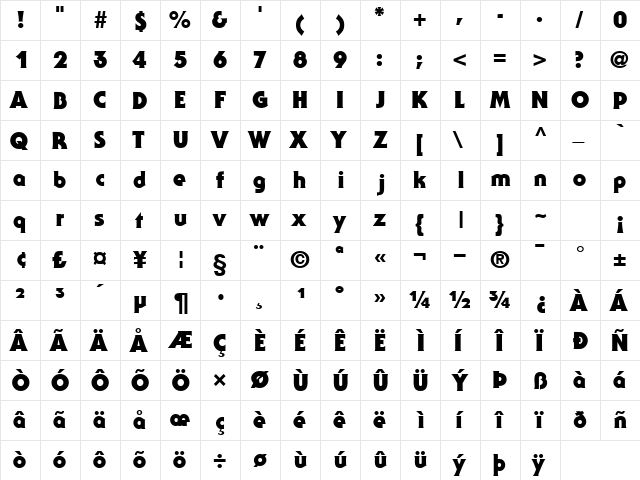
UbiqGothicBlackSSK Bold
Design Context for UbiqGothicBlackSSK Typeface
UbiqGothicBlackSSK has the quiet confidence of well-executed sans-serif typography: versatile, unobtrusive, and dependable at any size. The heavy weight commands attention and anchors typographic hierarchies.
Well-suited to navigation labels, product packaging, and anywhere legibility at scale is essential.
Font Pairing: Use UbiqGothicBlackSSK for headlines alongside a lighter-weight sans or serif for body copy to establish clear visual hierarchy.
Pro Tip: Use UbiqGothicBlackSSK for UI labels, navigation, and short-form body copy where clean legibility is the priority.